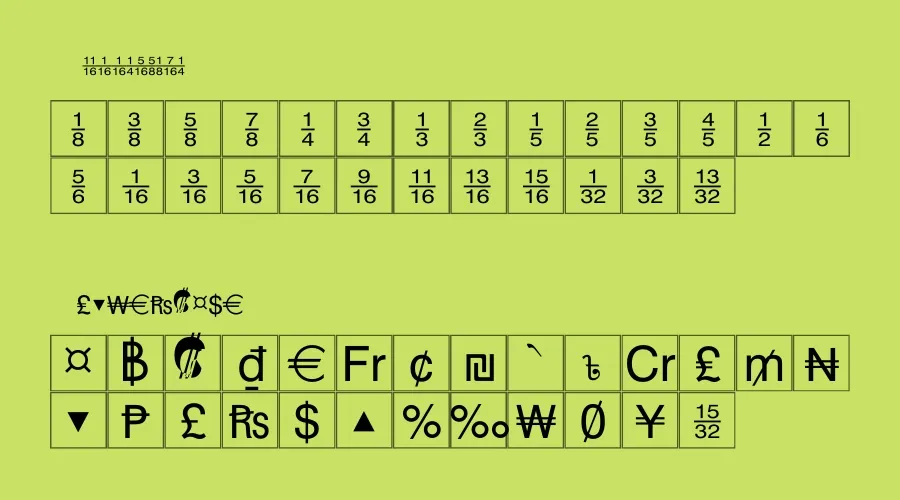
Currency PI BT Font
About Currency PI BT Font
The Currency PI BT Font is a special texture that was designed by bitstream. This typeface has only 1 style with a unique and stylish texture look. You may easily get this neat and elegant texture-free form here for all your individual methods. This font is under the category of the fancy texture family and contains all characters of the alphabet sets.
When this stunning font was released in the font world, it gained soo much popularity in a very short time, because it has a neat and stylish texture look appearance for visitors. It can be utilized with apple wine font and make trendy projects.